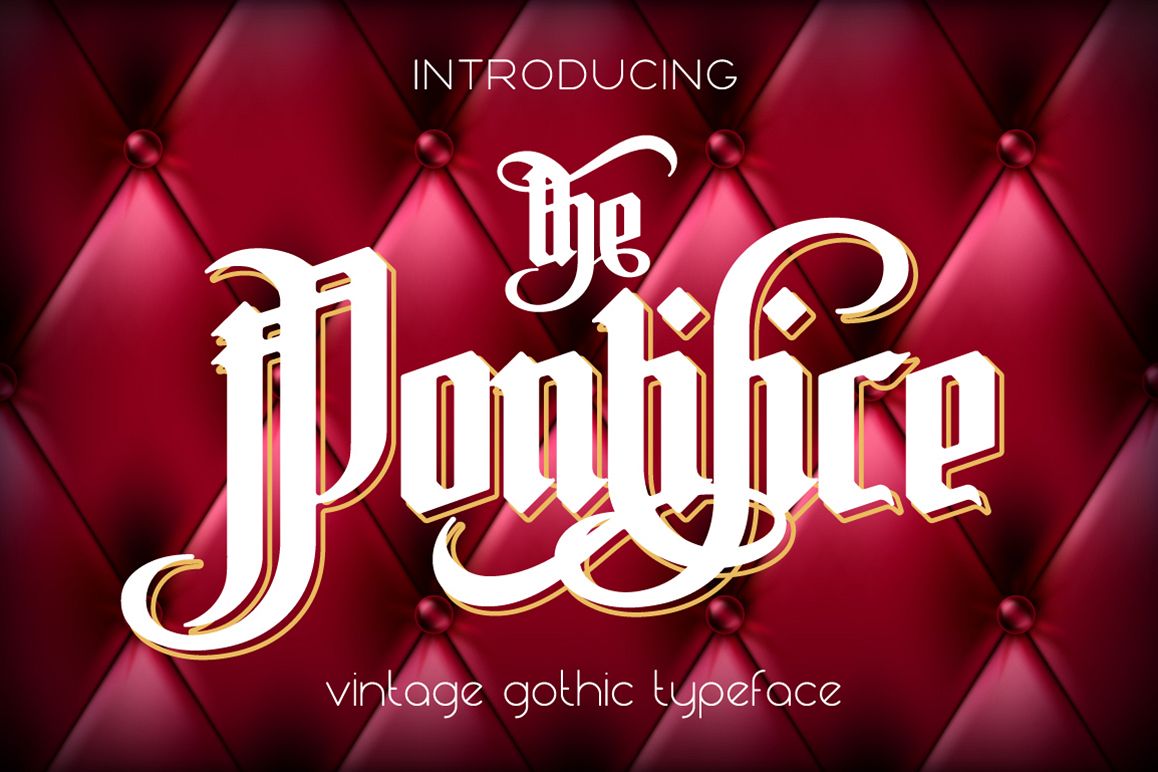
Pontifice
Hello friends, let me introduce my new gothic typeface - the Pontifice. It is based on "Phoenix", but with soft corners and wide glyphs. Also font has different features as ligatures.Main Files :